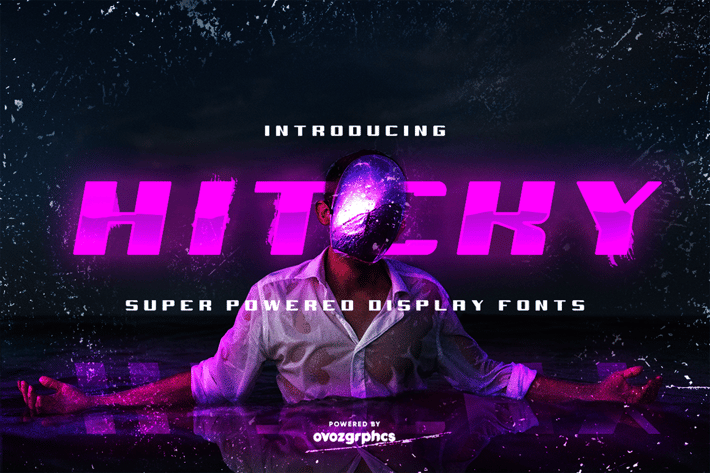
HITCKY SUPER POWERED DISPLAY FONT
HITCKY SUPER POWERED DISPLAY FONT, is our new item that suitable for your team logo, or community logo.
Great for Logo, Sticker, Jersey, Invitation Card, Brochure, etc.